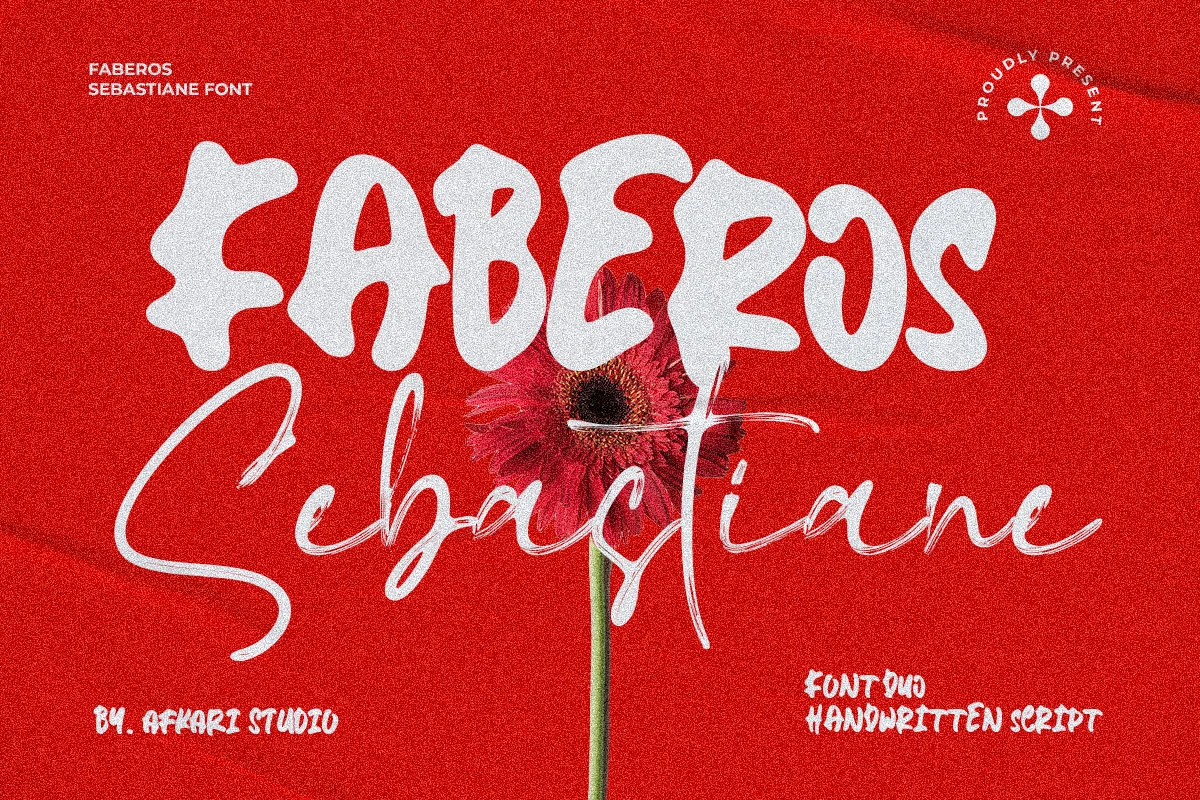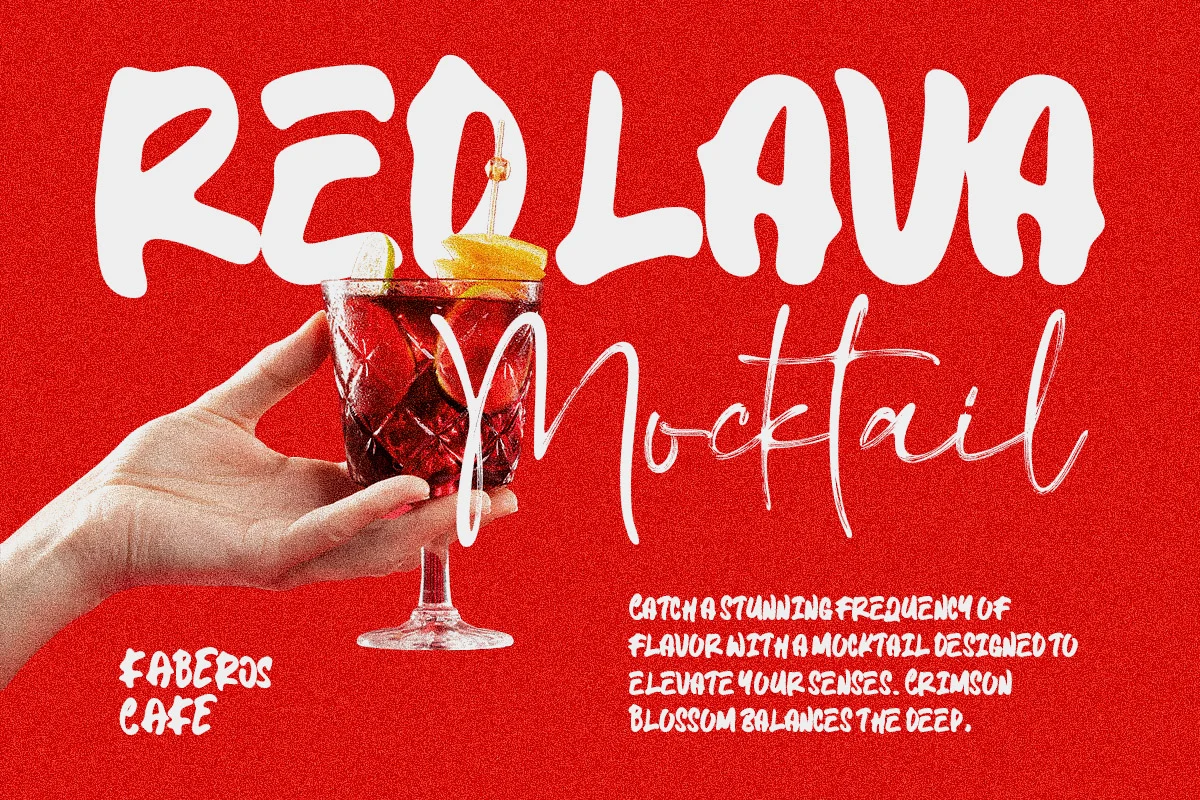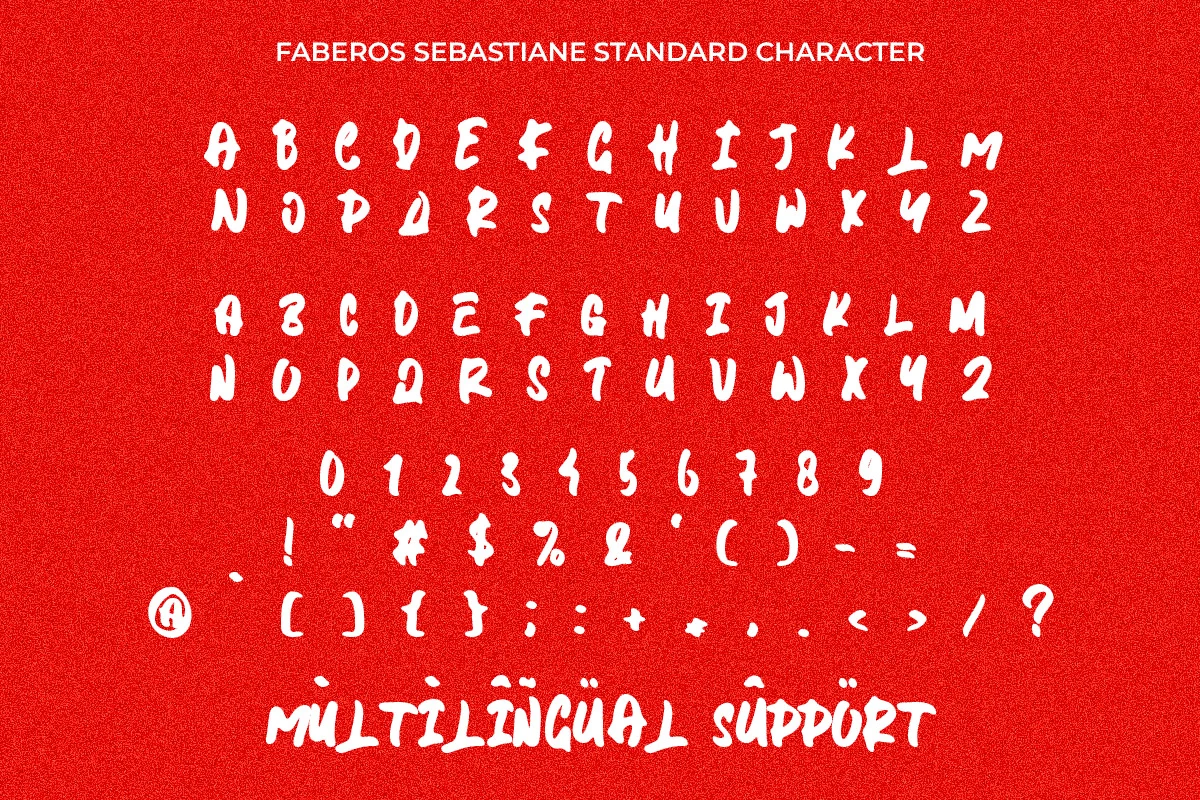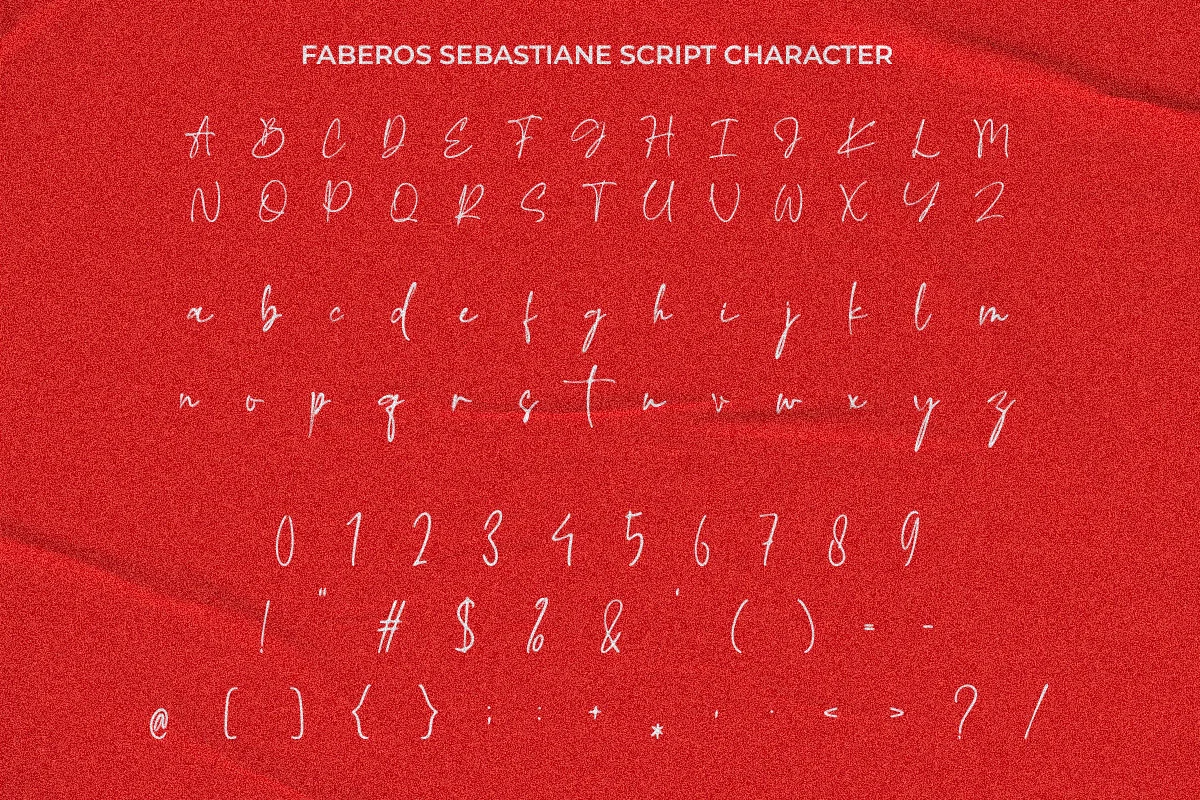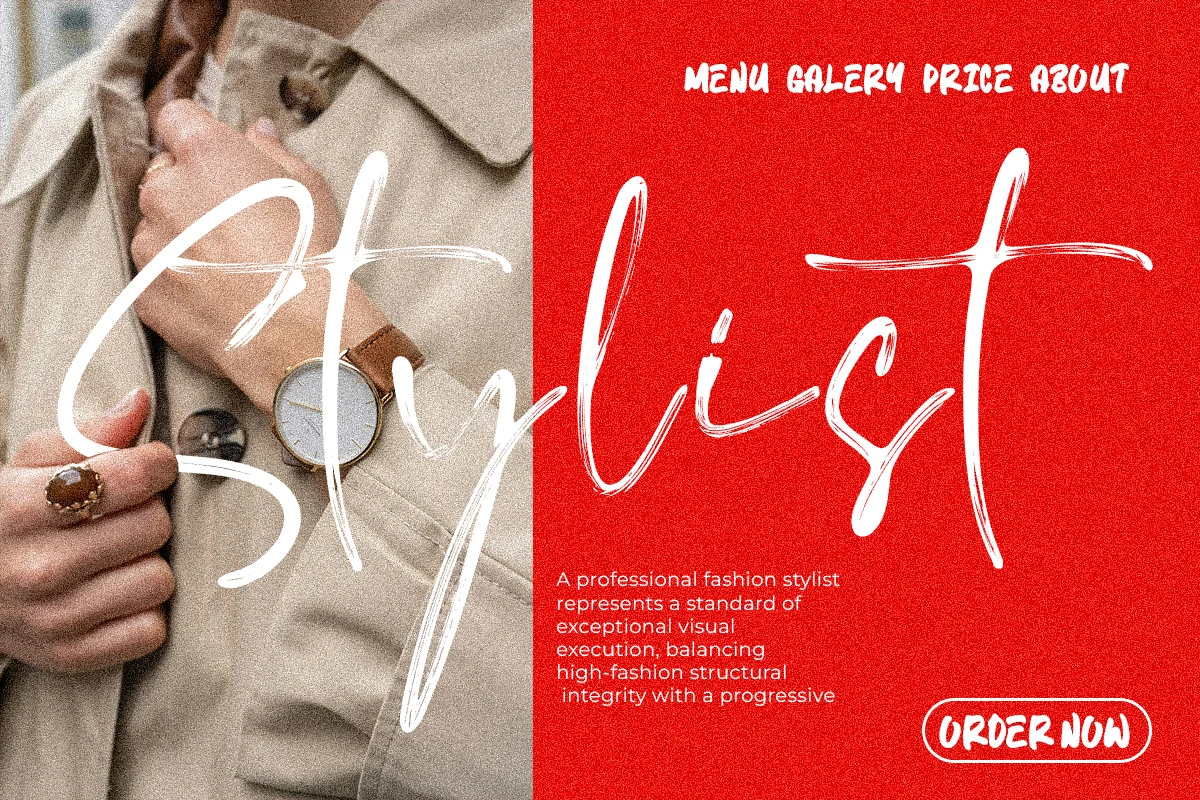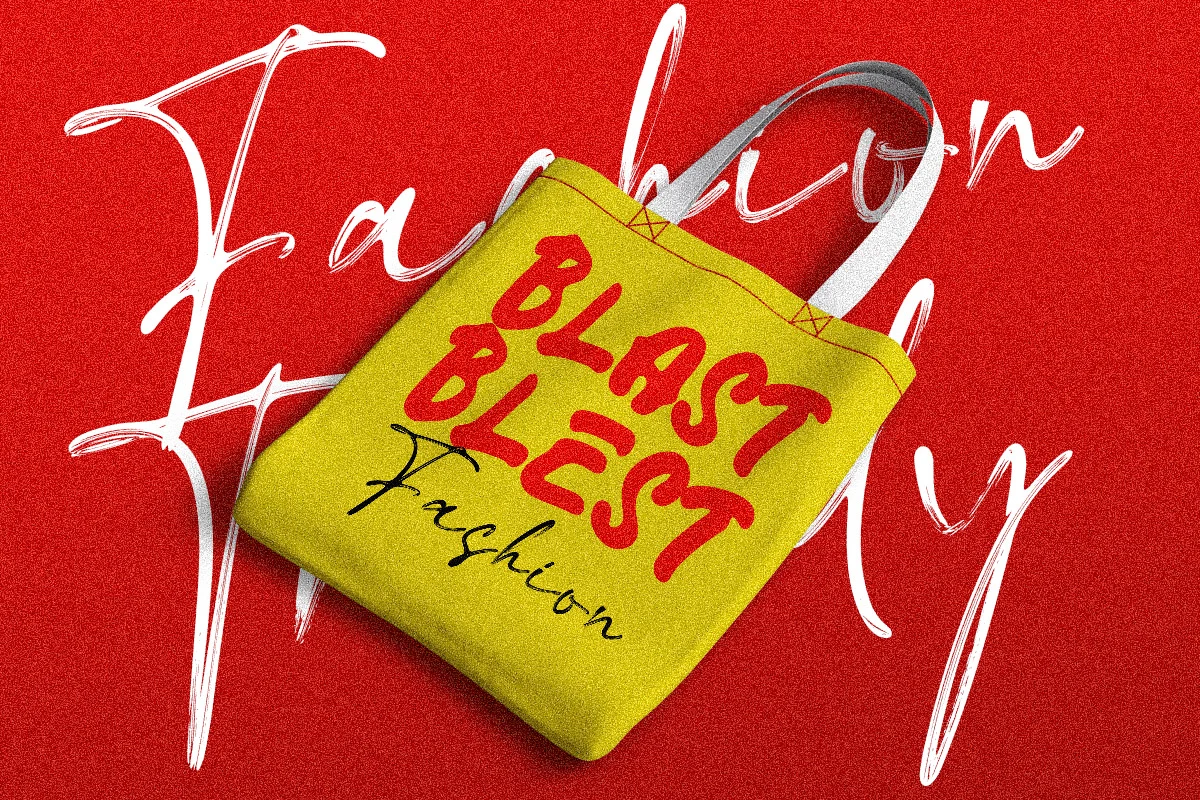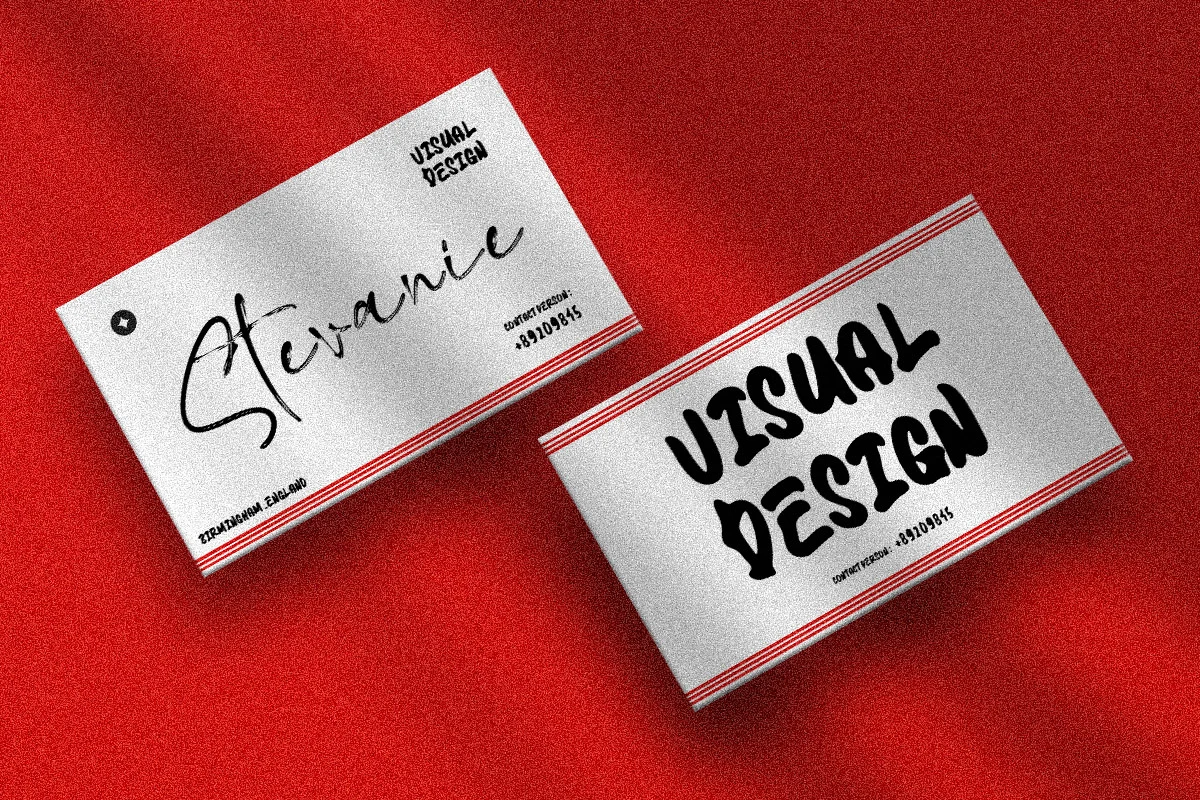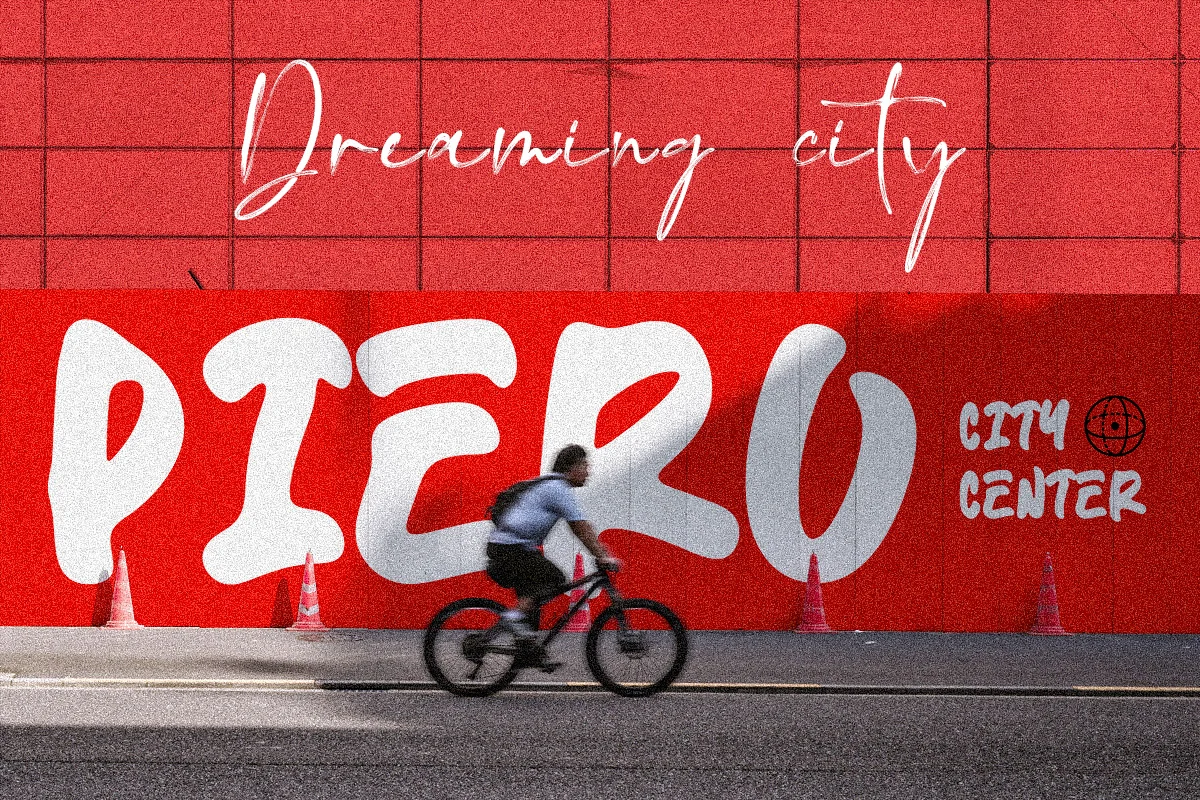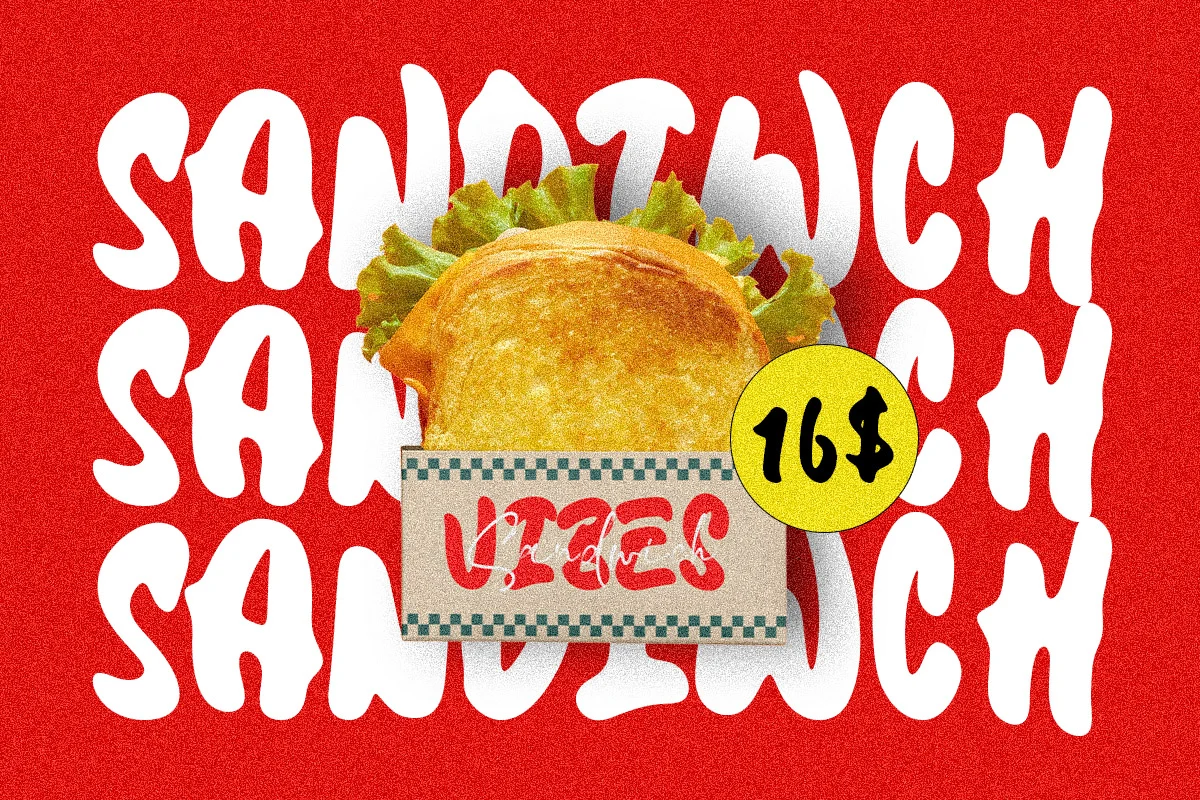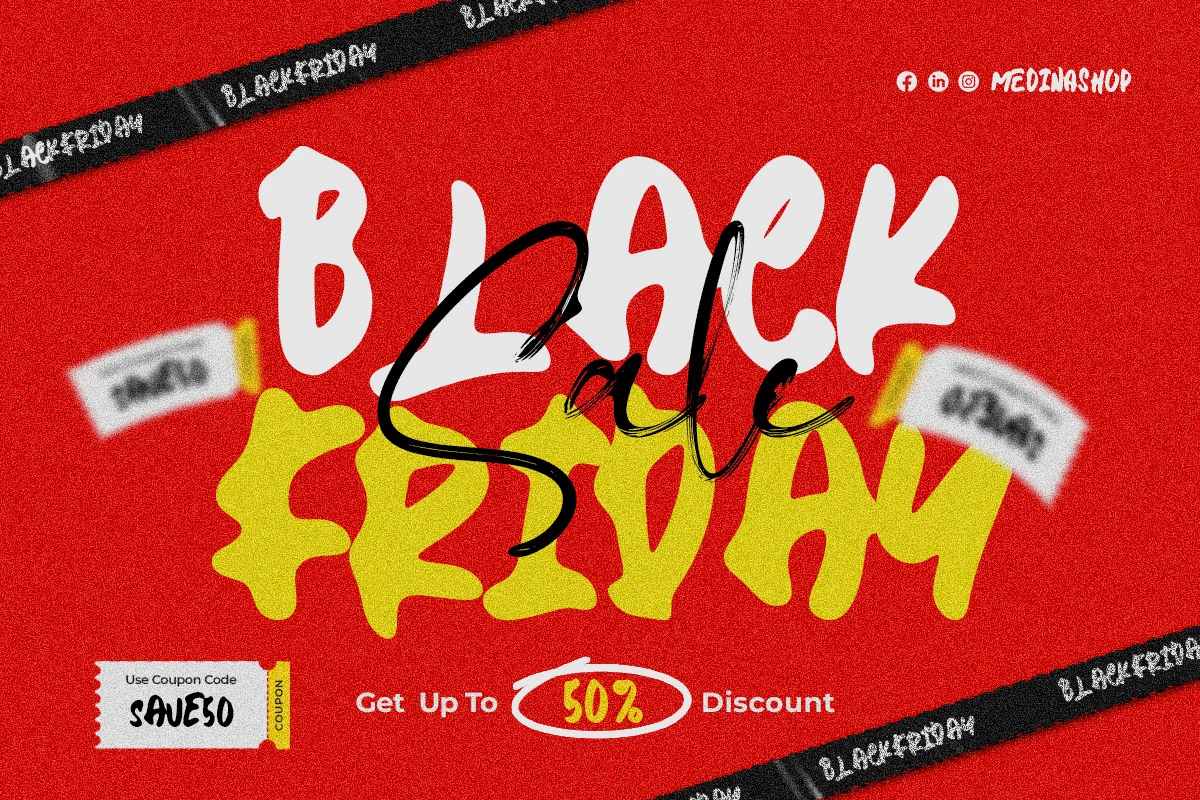
Faberos Sebastian is a beautiful and versatile font duo. It combines the charm of a natural handwritten font with the elegance of a flowing script typeface. Designed to add authenticity, sophistication, and personality, this font duo helps elevate a wide range of creative projects.
Created for designers, entrepreneurs, content creators, and branding specialists, Faberos Sebastian makes it easy to build stunning typography compositions. The handwritten style offers a relaxed and modern feel. The script style adds graceful movement and timeless elegance. Together, they create the perfect balance between casual expression and luxurious styling.
Faberos Sebastian is ideal for logos, wedding invitations, social media graphics, packaging, product labels, fashion branding, greeting cards, and editorial layouts. Its flexibility allows you to create unique and memorable visual identities. The natural strokes and handcrafted details give designs a more personal, authentic, and engaging appearance.
The combination of handwritten and script styles provides both readability and decorative beauty. Use them together to create eye-catching contrasts. Use them individually when you want a distinctive visual voice that captures attention and communicates style.
Highlighted Features
- Two font styles: Handwritten & Script
- Natural handcrafted appearance
- Uppercase, lowercase, numbers, and punctuation
- Special alternates and ligatures
- MültîlÃñgúãl Sùppört for: ä ö ü Ä Ö Ü ß ¿ ¡
Faberos Sebastian is more than a font duo. It is a creative toolkit designed to make your projects elegant, personal, and unforgettable. Whether you are building a luxury brand, creating wedding stationery, or designing social media content, this font duo provides the flexibility and style needed to bring your vision to life.